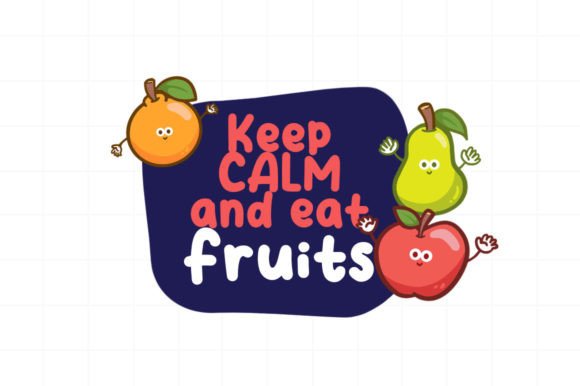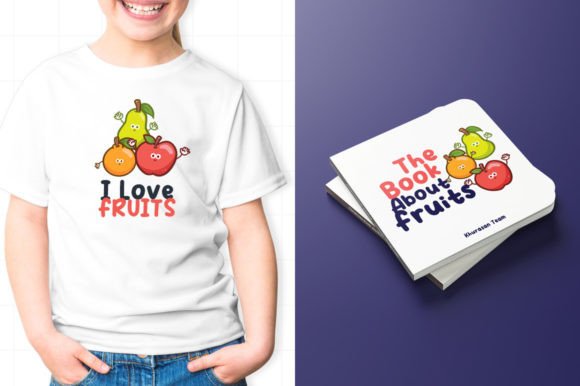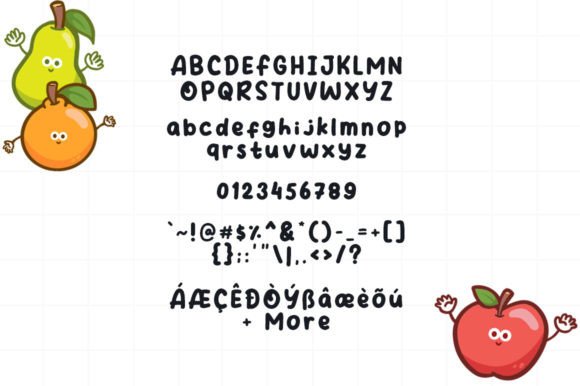
Introduction to Fruit Days Font
Fruit Days is a fun and cool display font.
Whether you use it for cartoon-related designs, children’s games, or just any creation that requires a playful touch, this font is the perfect choice for your designs .
Fruit Days Font offers exceptional quality and versatility, making it a valuable addition to your design toolkit. Whether you’re creating for personal projects or commercial use, Fruit Days Font delivers professional results.